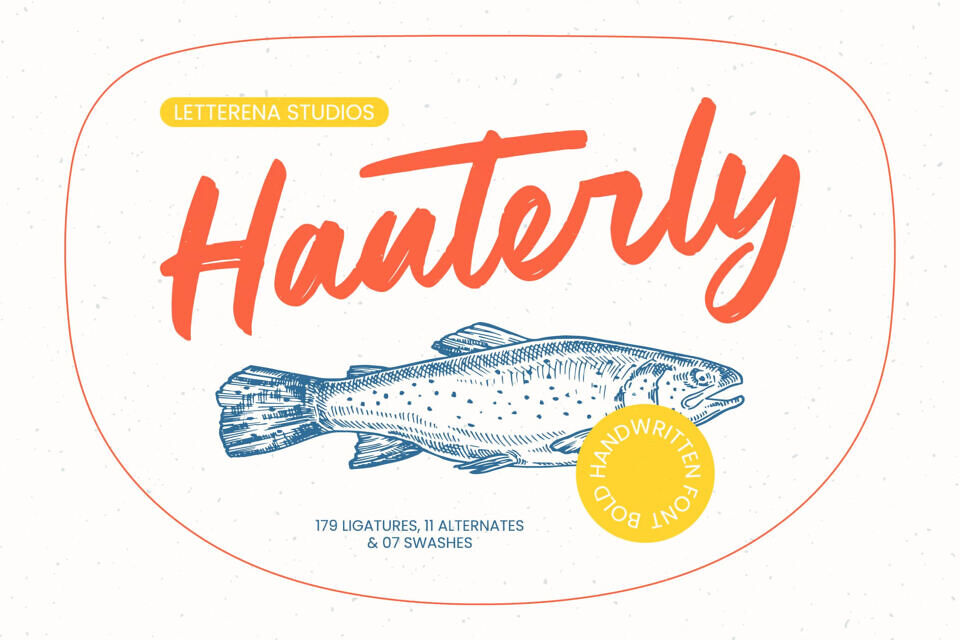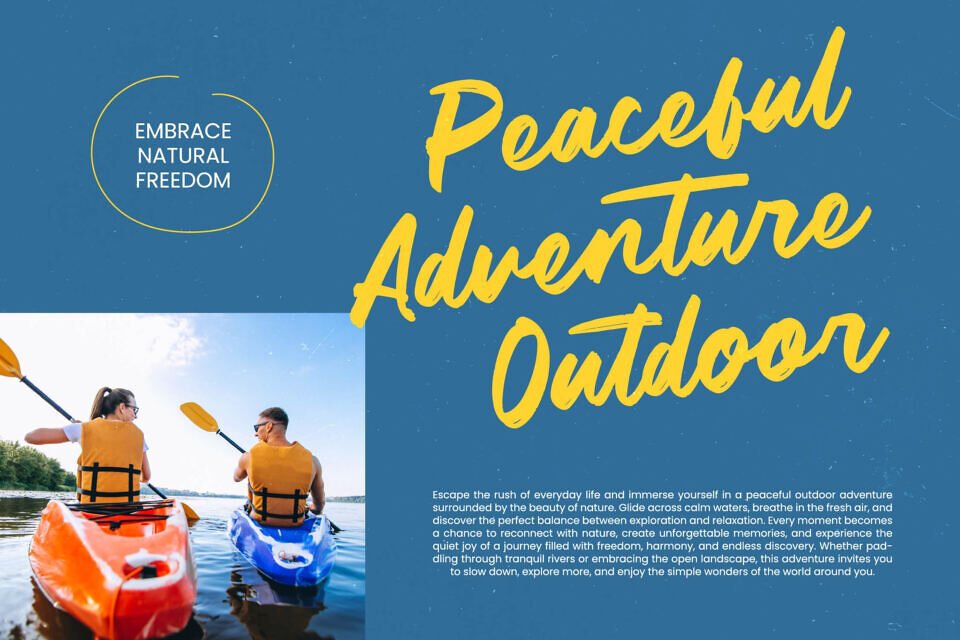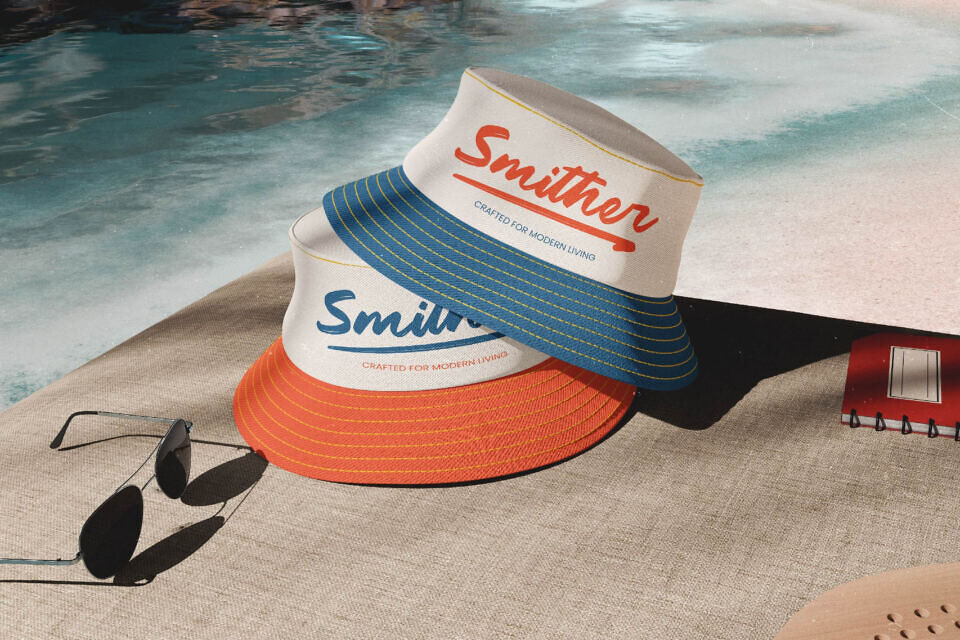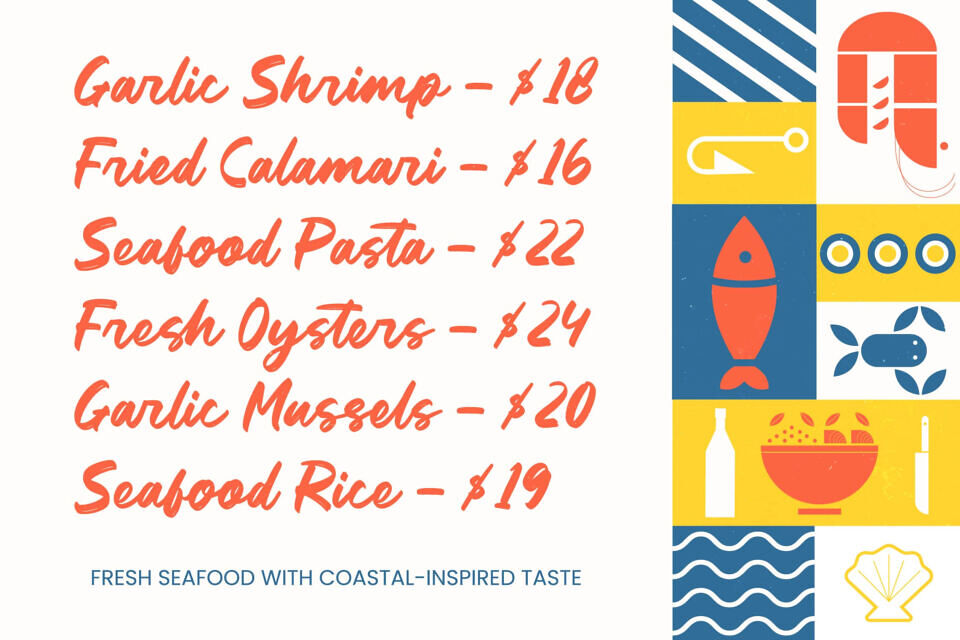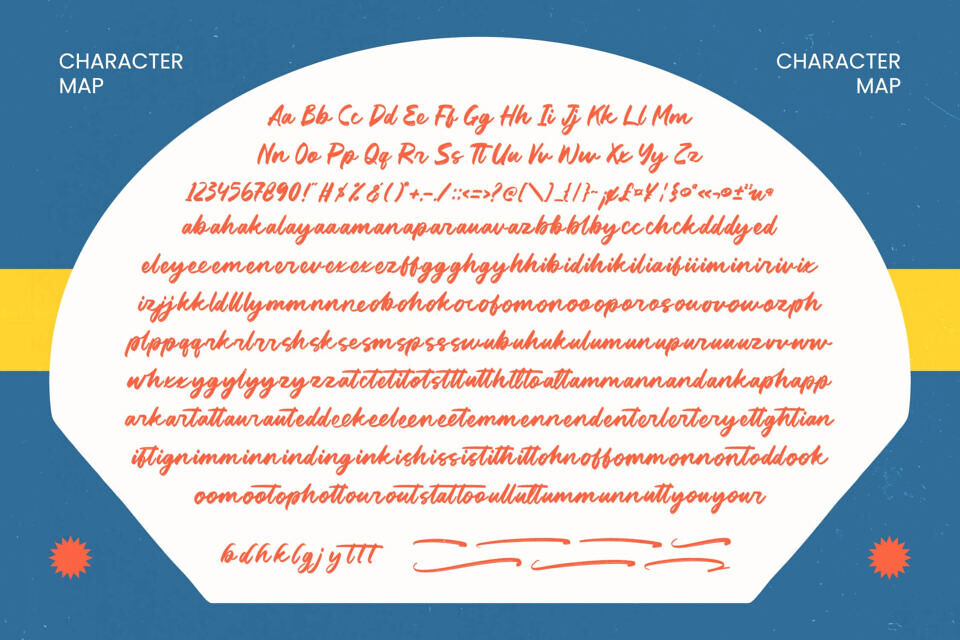
Unlock your creative potential with a font that exudes energy and authenticity. The Hauterly font combines bold strokes with a modern look, making your message stand out. With 179 ligatures and swashes, it’s perfect for luxury branding, packaging, and editorial layouts.
Its multilingual support also makes it ideal for global projects, allowing you to maintain a consistent brand voice across languages and borders. This versatile font helps you create a distinctive identity that resonates with a diverse audience.